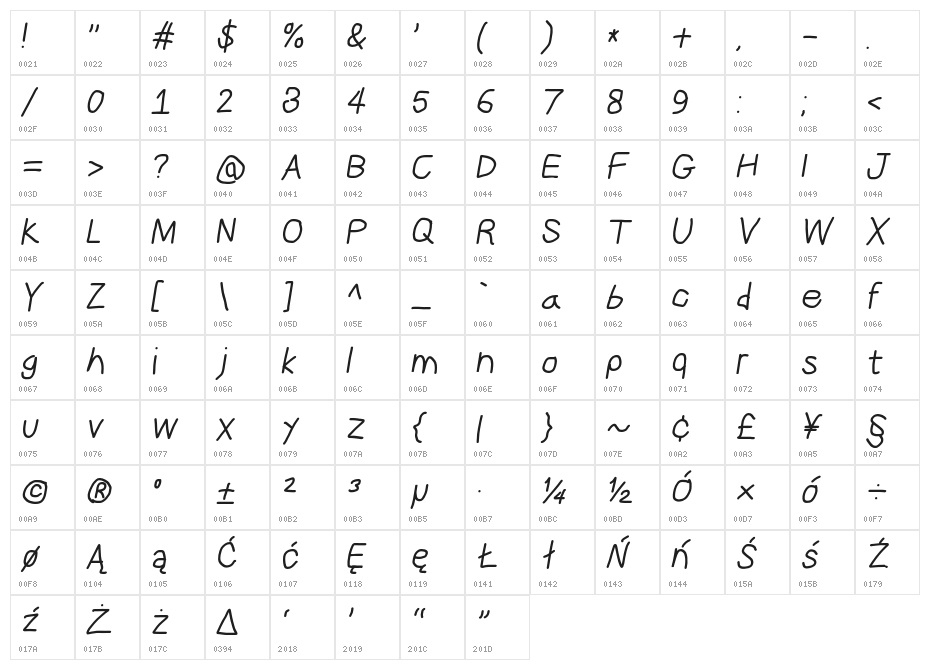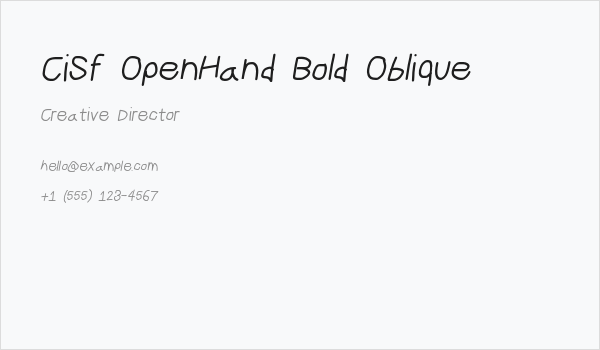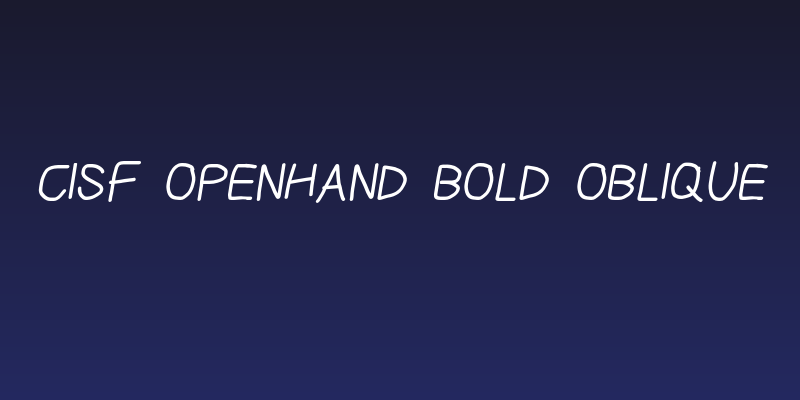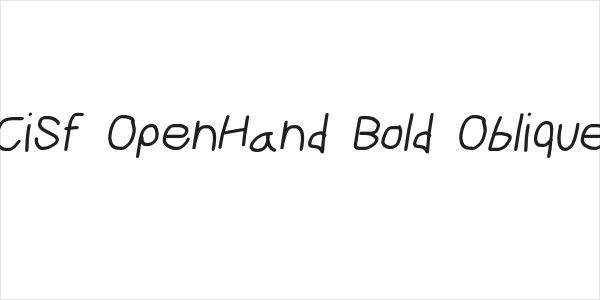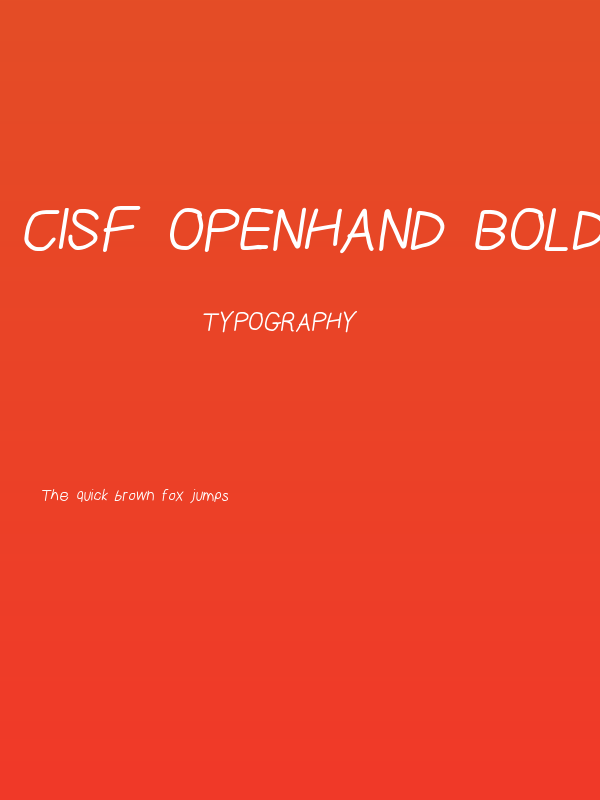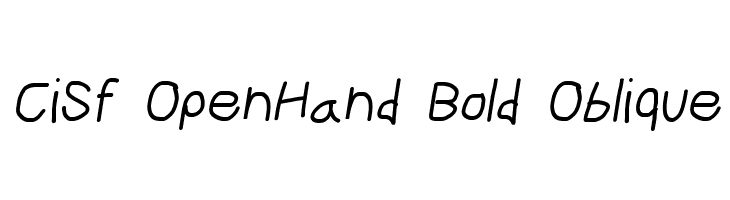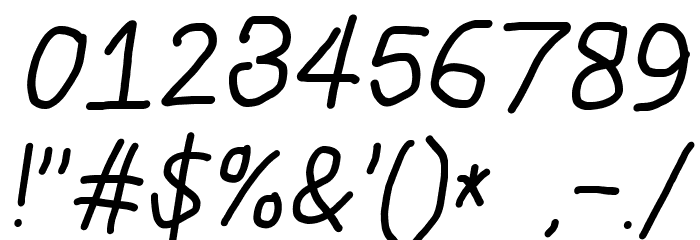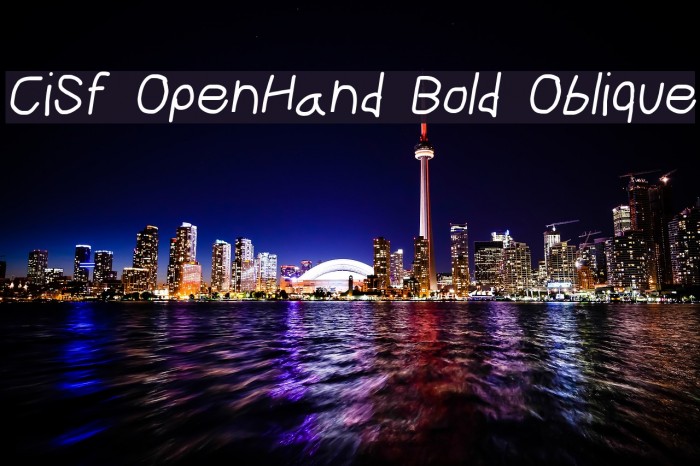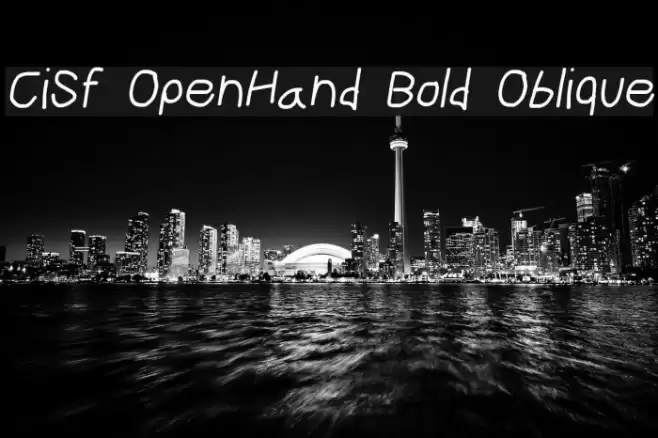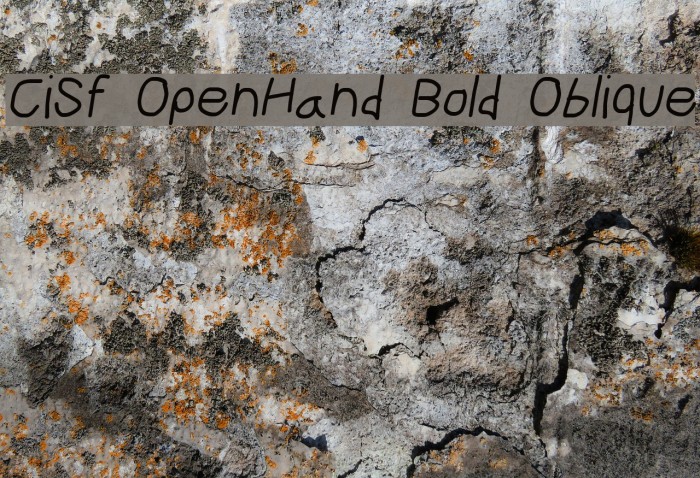
CiSf OpenHand Bold Oblique Font
CiSf OpenHand Bold Oblique Description
This font presents a playful and casual handwritten style, characterized by its bold and oblique nature. The letters have a smooth, flowing appearance, with slightly irregular strokes that add a personal touch. The uppercase and lowercase letters maintain a consistent style, while the numerals and special characters are easily recognizable and blend seamlessly with the overall design. The font's boldness ensures readability, while the oblique angle gives it a dynamic and energetic feel.
| Overall Style | Casual, Playful |
| Use Case | Headlines, Casual text, Invitations |
| Proposed Projects | Ideal for projects that require a personal touch, such as greeting cards, invitations, casual branding, or children's book illustrations. |